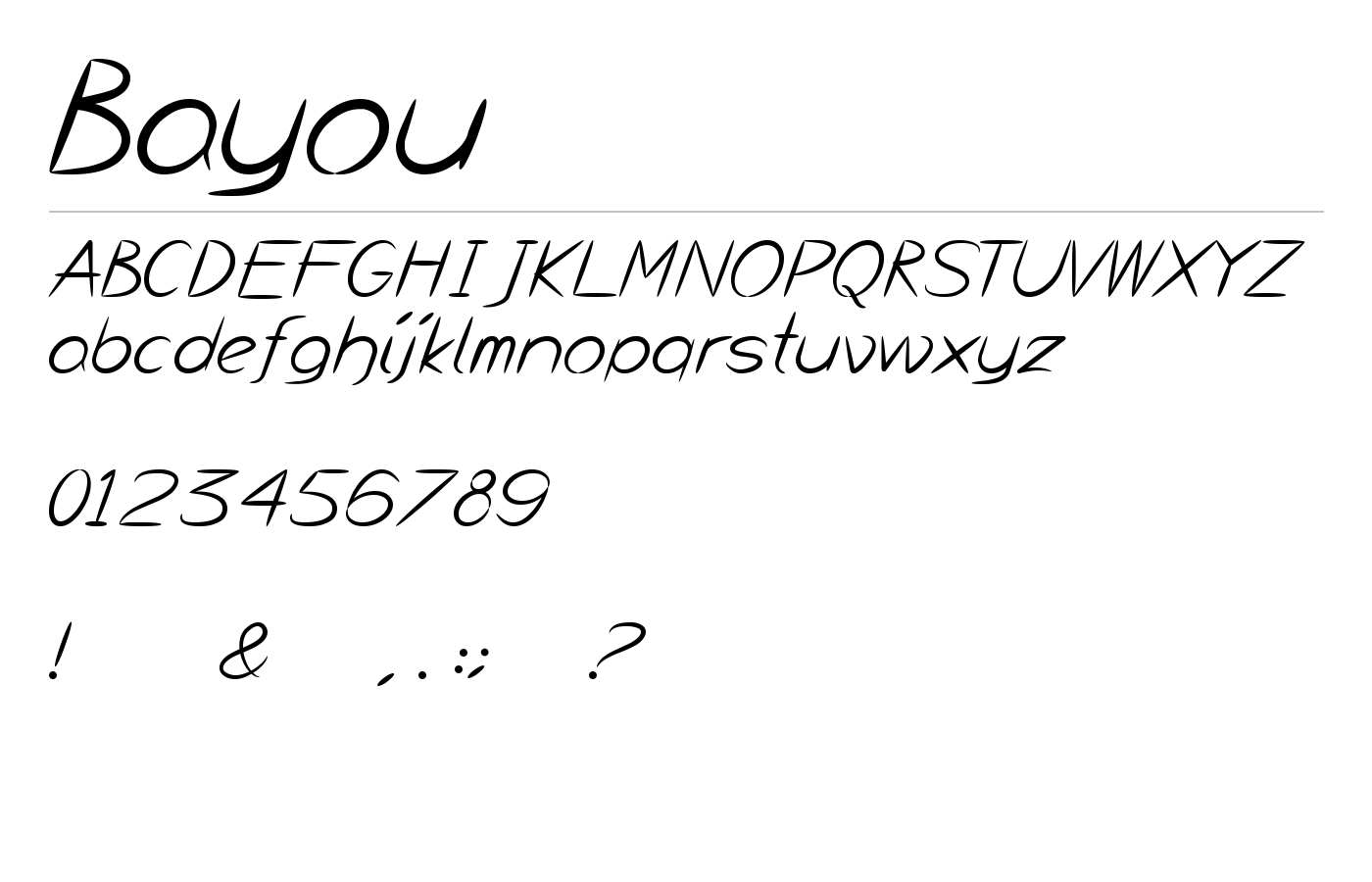
Bayou is a light, handwritten-style sans serif font with a casual and playful character, featuring slender, slightly slanted letterforms that convey a personal and informal feel. Its airy spacing and smooth, curved strokes make it ideal for creative projects, invitations, or branding that seeks a friendly, approachable vibe. This font works best in headlines, logos, and packaging where a relaxed, handcrafted touch is desired.
Bayou Font
| Designer | Simon Beck |